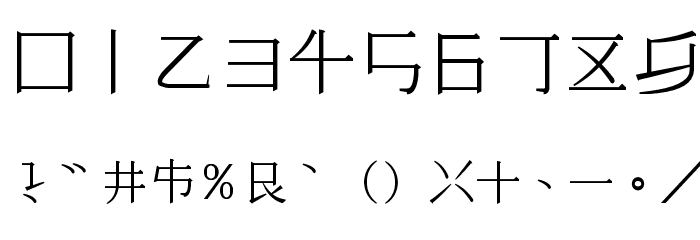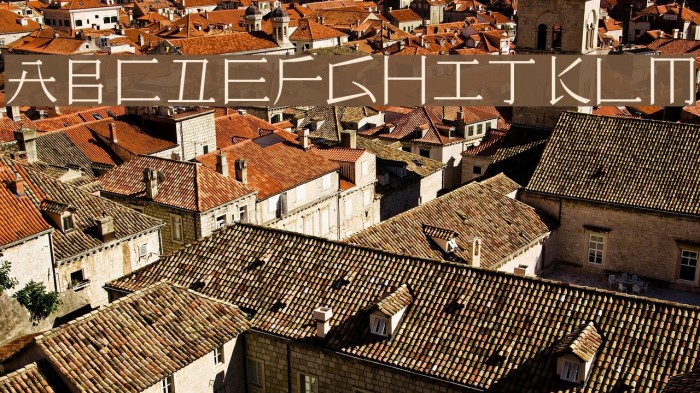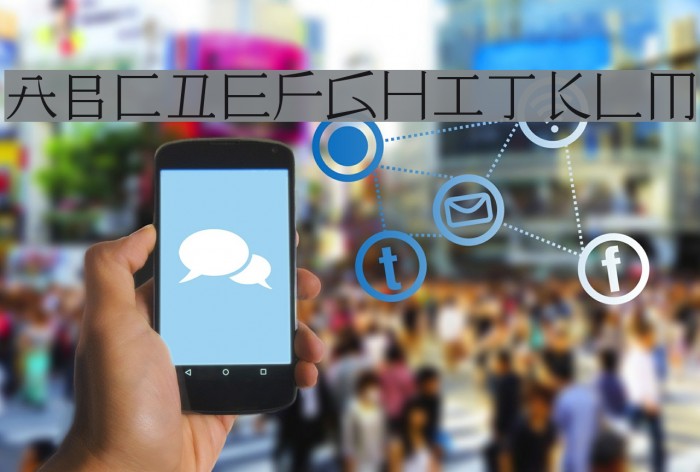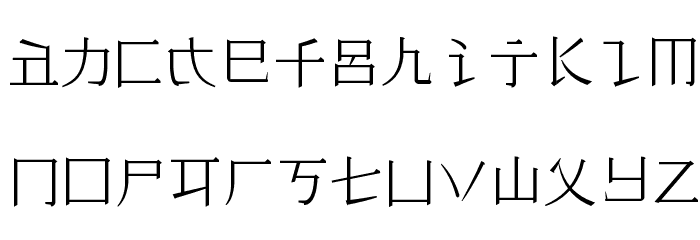
Faux Hanamin Font
Faux Hanamin Description
This font features a unique blend of geometric and calligraphic elements, creating a modern yet traditional aesthetic. The characters are composed of straight lines and sharp angles, giving it a structured and formal appearance. The strokes are consistent in width, contributing to a uniform look across all characters. The uppercase letters are bold and prominent, while the lowercase letters maintain a similar style but with a slightly softer touch. The numerals are clear and easy to read, matching the overall design of the alphabet. Special characters are included, maintaining the same stylistic approach, which makes this font versatile for various uses.
A geometric and calligraphic font with consistent stroke width and a modern-traditional aesthetic from Uncategorized fonts.
- Proposed Projects: Ideal for branding, signage, and editorial design projects that require a blend of modern and traditional styles.